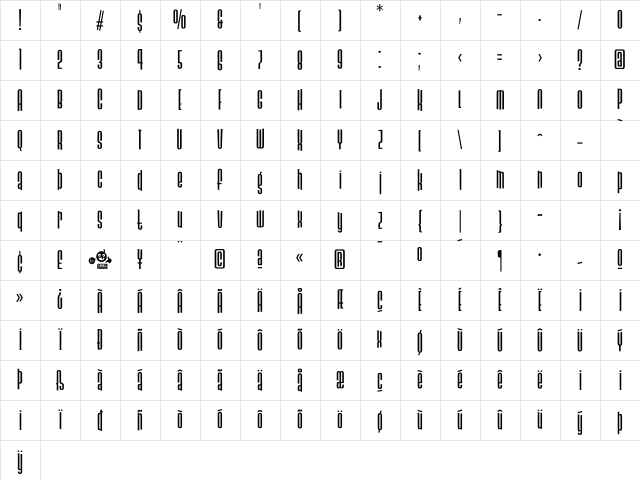
SlackCasual Medium
Design Context for SlackCasual
SlackCasual is a composed and adaptable typeface that performs quietly and consistently across a wide range of design contexts.